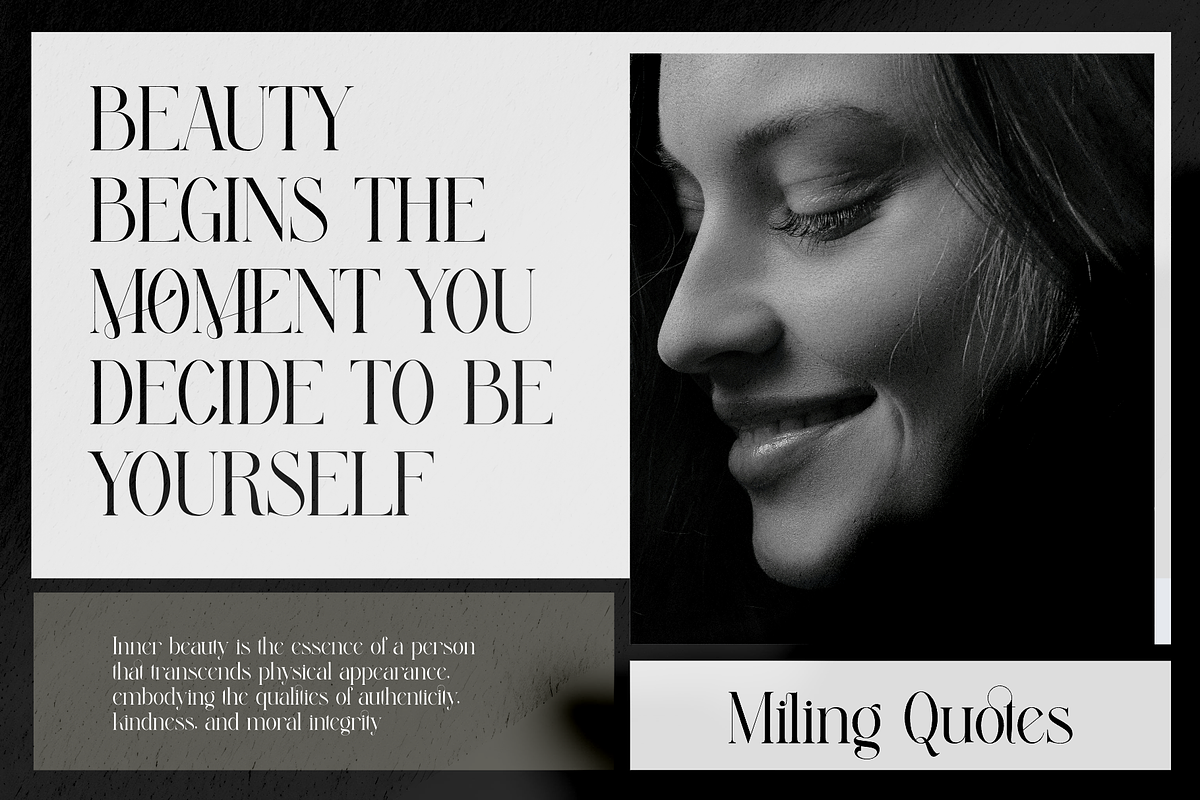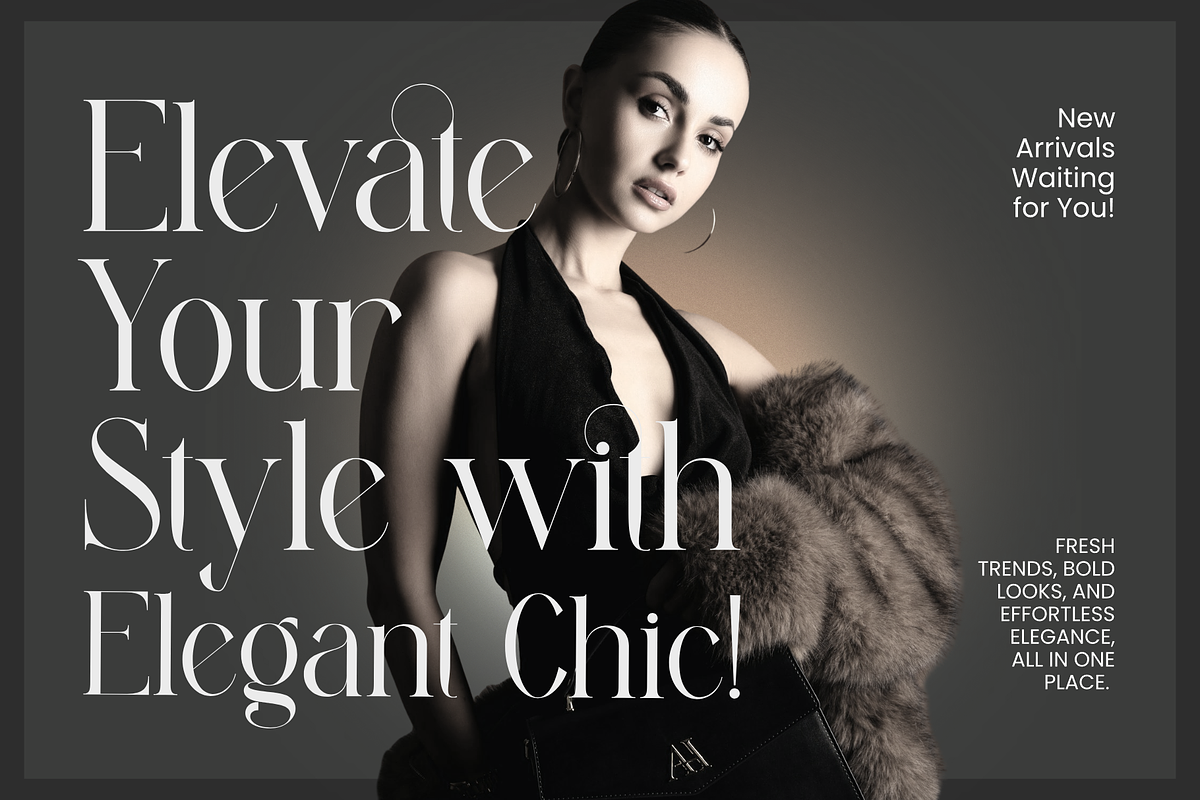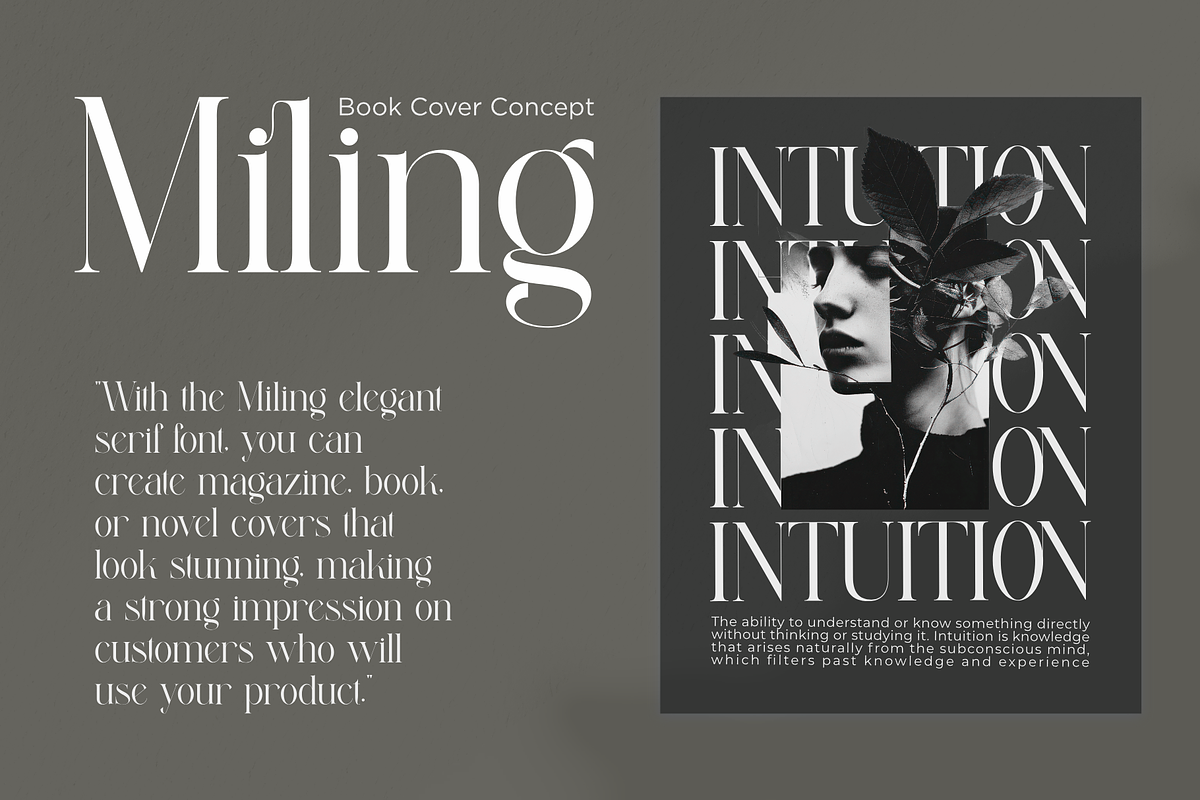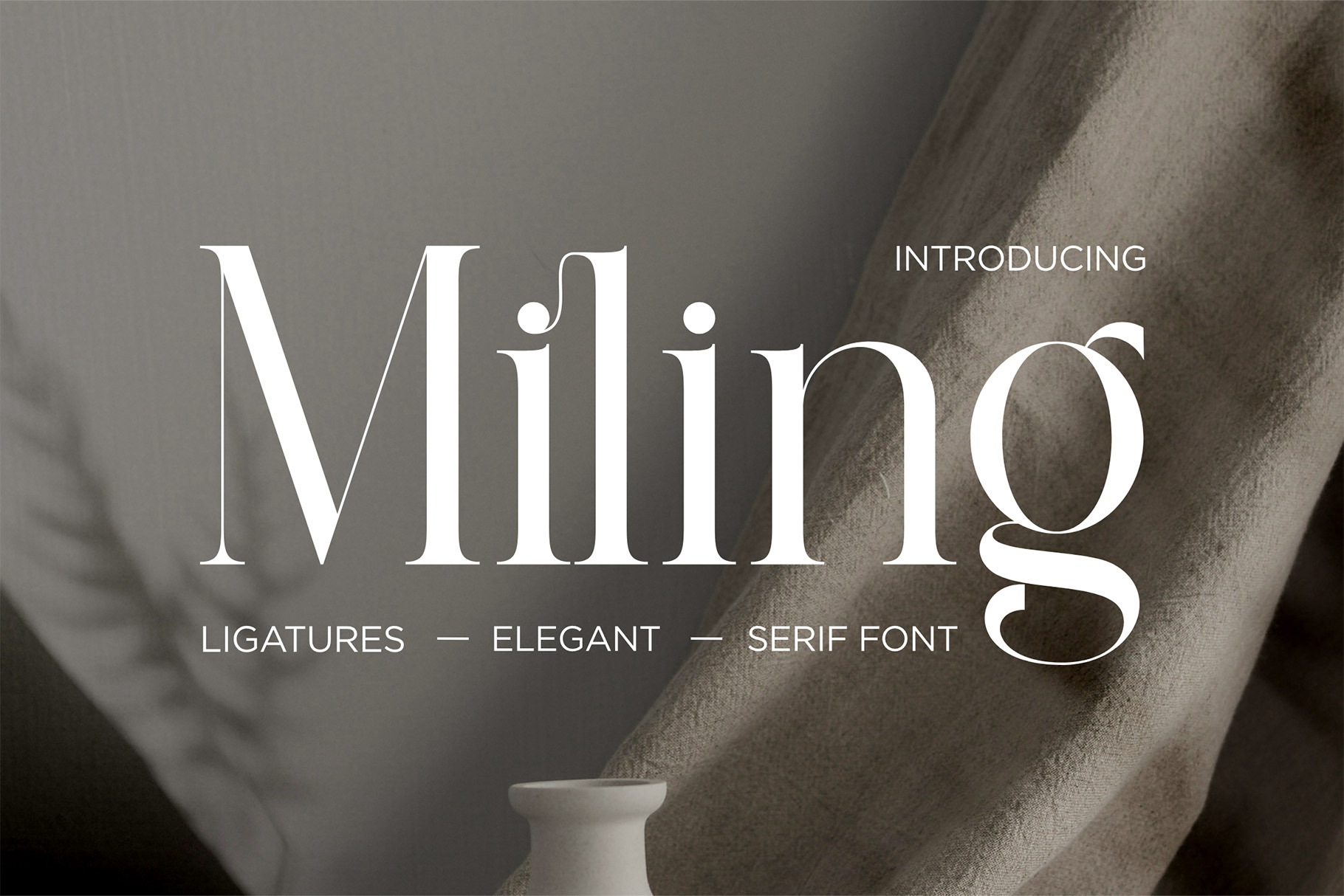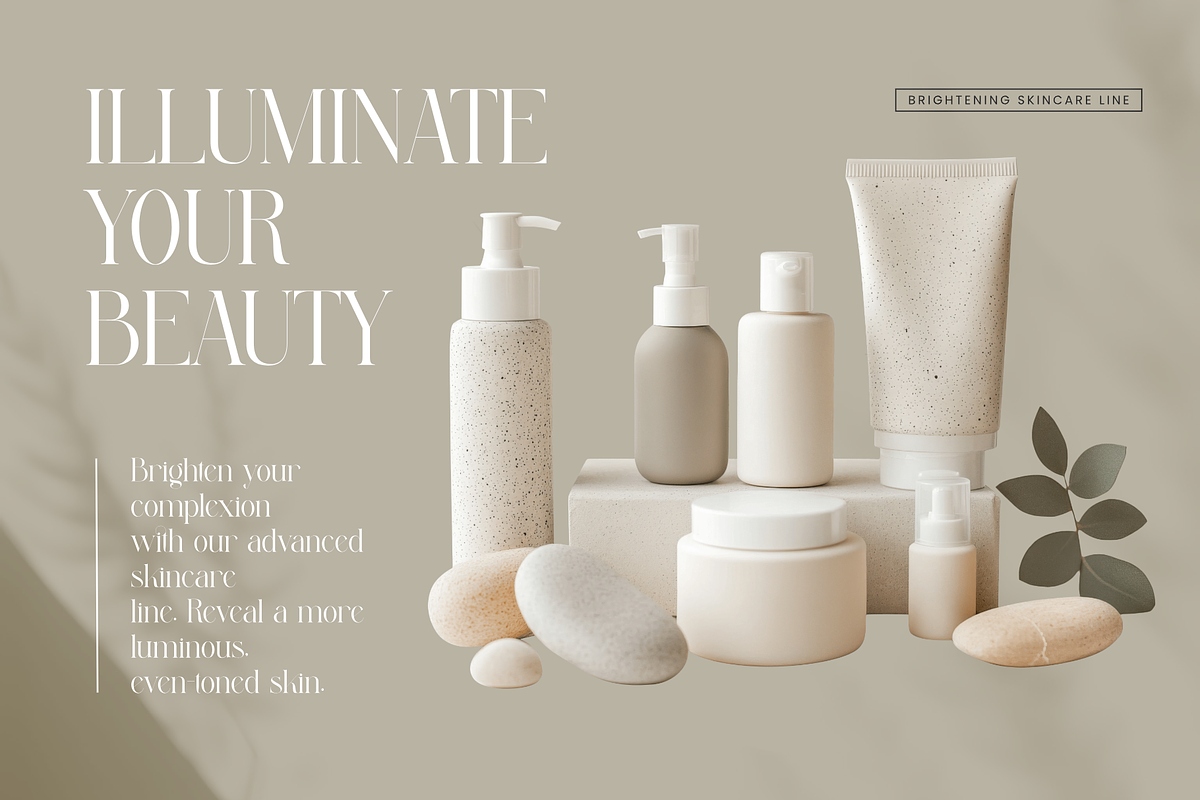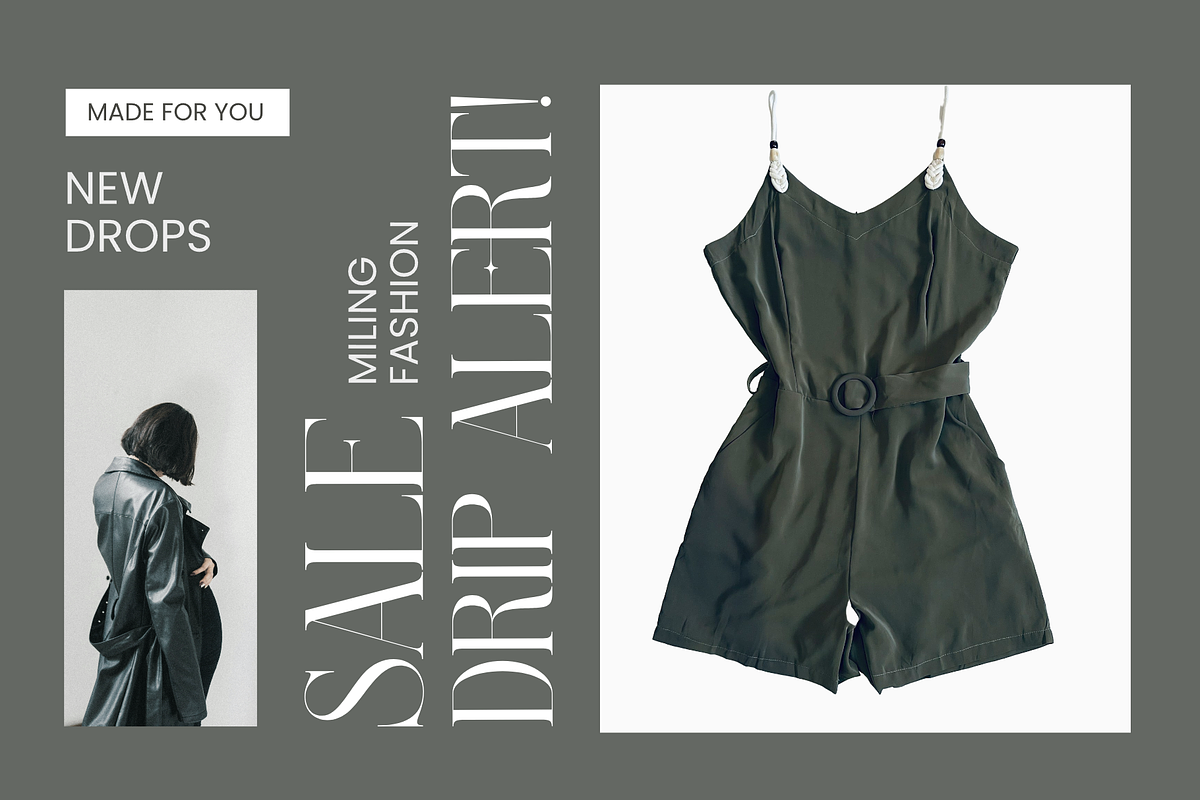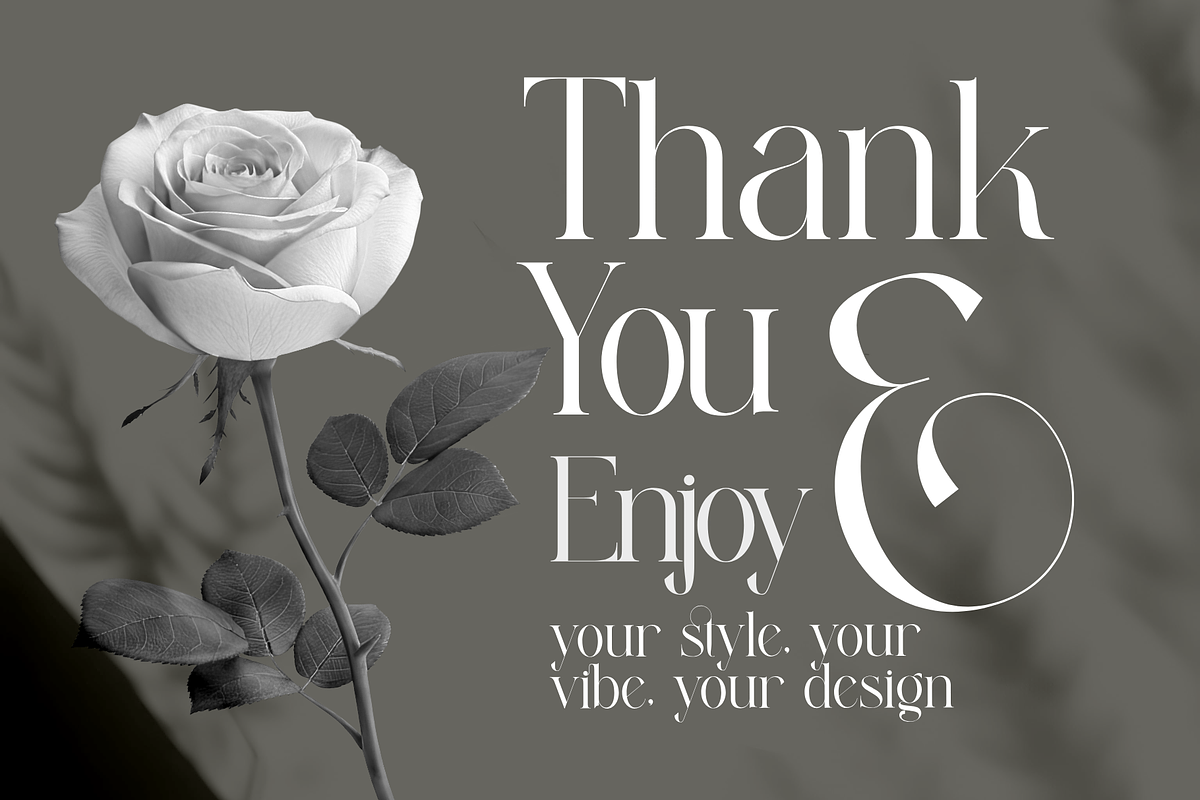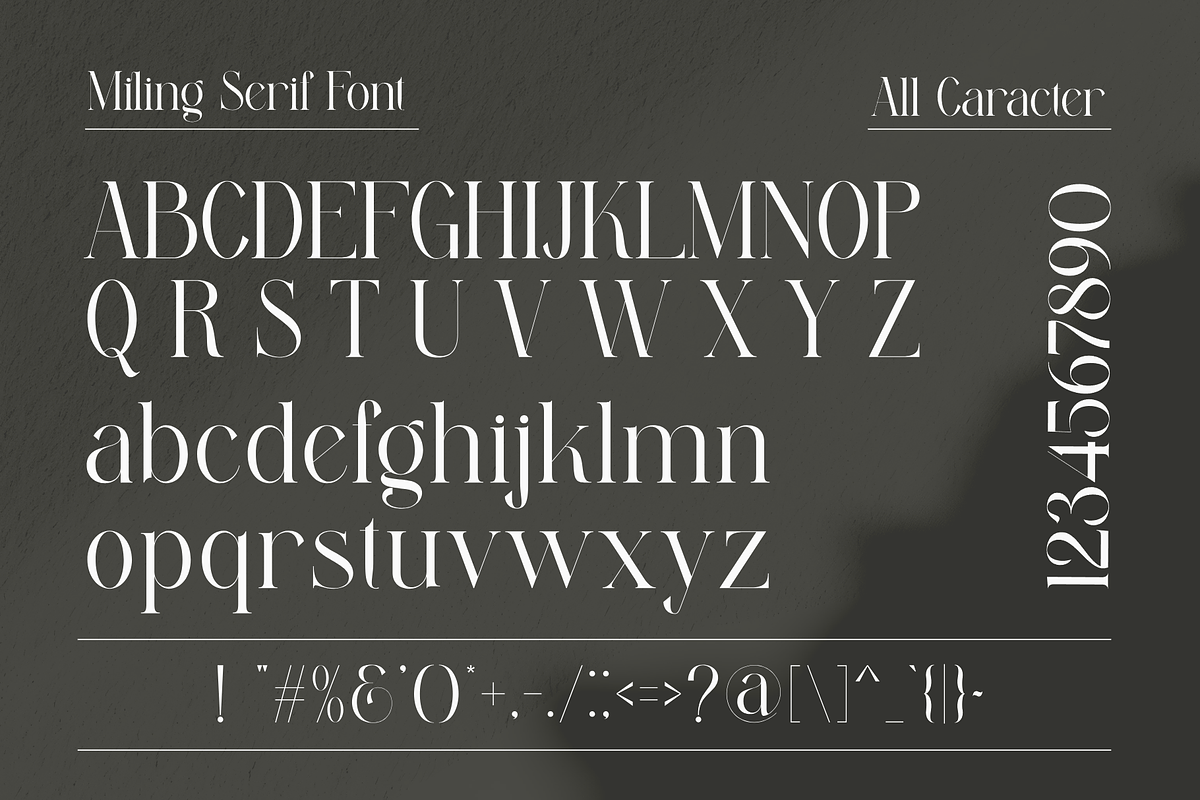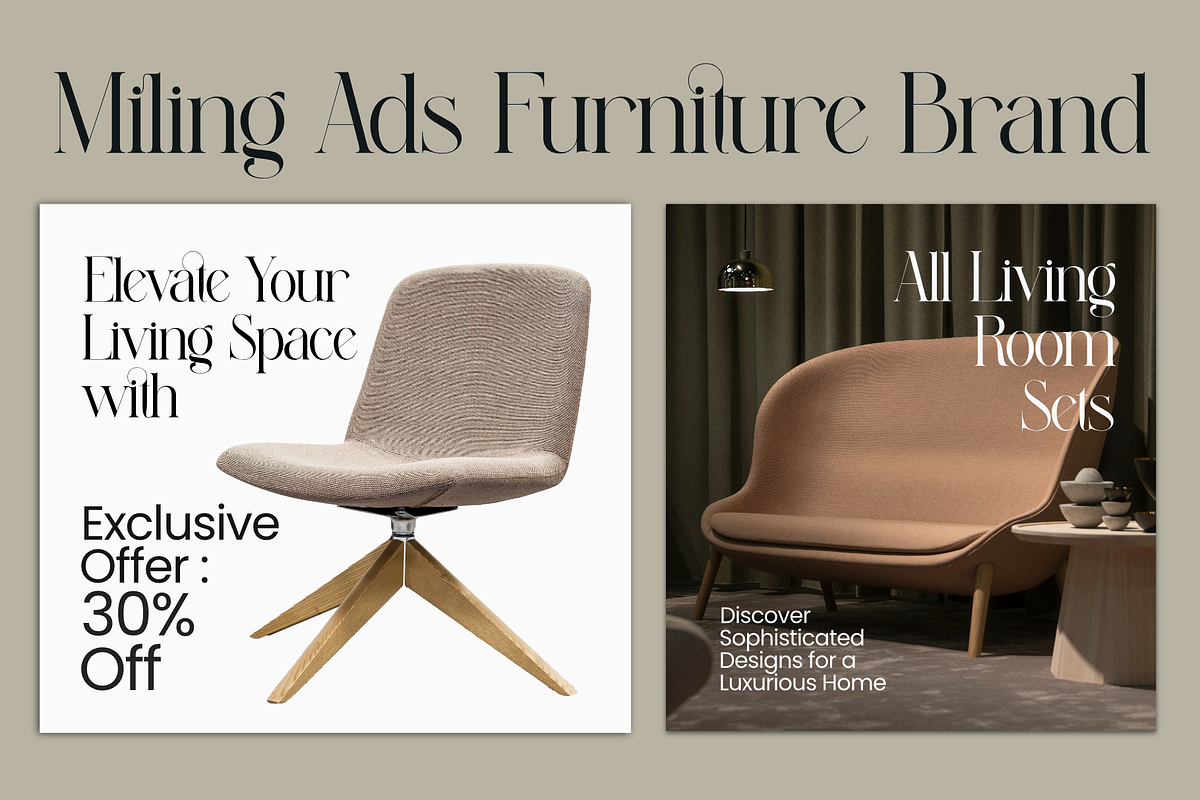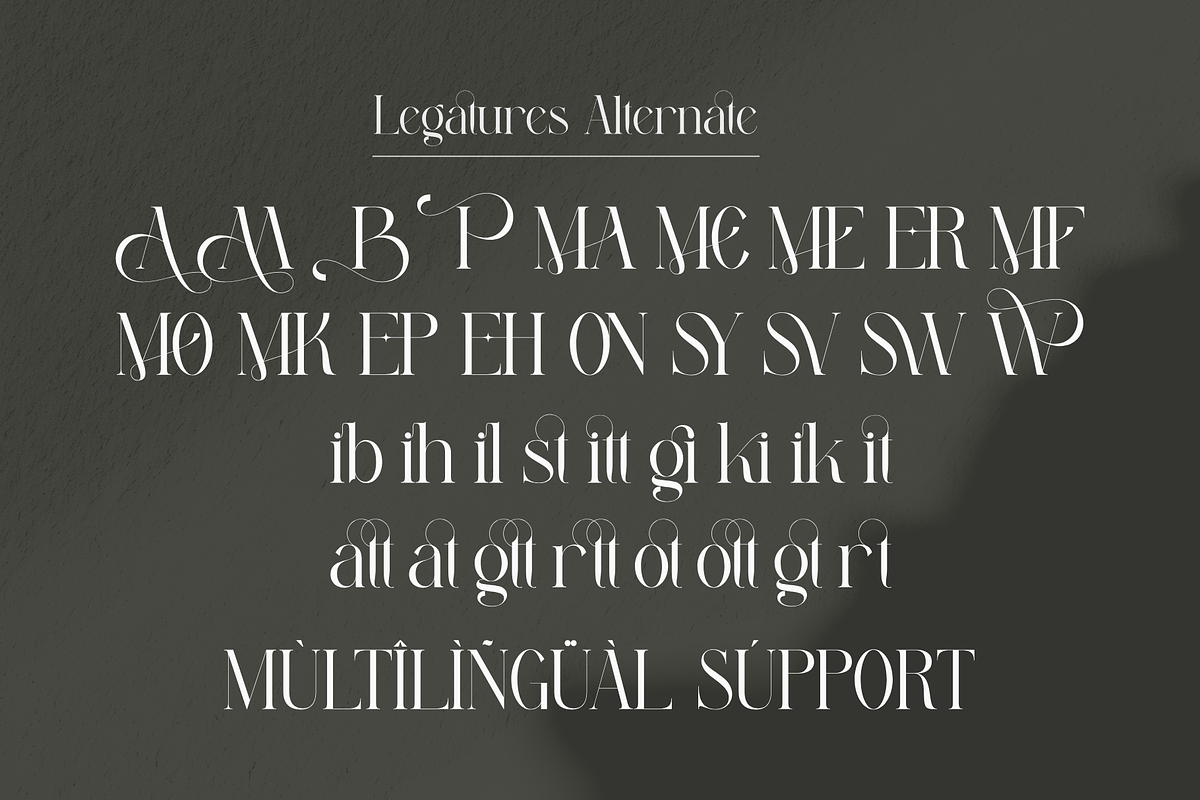
Miling Modern Serif Typeface
Miling is a contemporary serif typeface that seamlessly blends minimalist design with crisp detail. It draws inspiration from the clean lines of modernity and the precision of industrial aesthetics, resulting in a refined yet striking typographic personality.
Core Characteristics
Clean, High‑Contrast Serifs Features fine, sharp serifs and balanced stroke contrast that feel both elegant and assertive—perfectly calibrated for modern applications. The result is a font that conveys clarity and sophistication.
Geometric Elegance With letterforms rooted in geometry, Miling achieves a sense of technical finesse, reminiscent of titanium engineering and automated precision
Complete Glyph Set & Multilingual Support Includes uppercase, lowercase, numerals, punctuation, and multilingual characters—making it usable across diverse languages and design needs.
OpenType Essentials Equipped with essential alternates and ligatures, Miling enhances professional design while preserving readability and polish.
Modern Minimalism: Delivers a sleek, uncluttered aesthetic with a subtle serif edge.
Precision Craftsmanship: Every stroke reflects a sense of engineered refinement.
Design Flexibility: Works equally well in display settings (logos, headers) and long-form text.
Professional Impact: Projects an image of sophistication and contemporary flair. Miling is the go‑to modern serif for designers seeking a blend of geometric sharpness and refined serif detail. Its adaptable nature suits branding, editorial content, packaging, and professional materials—bringing a cohesive, high-end visual presence to any project.